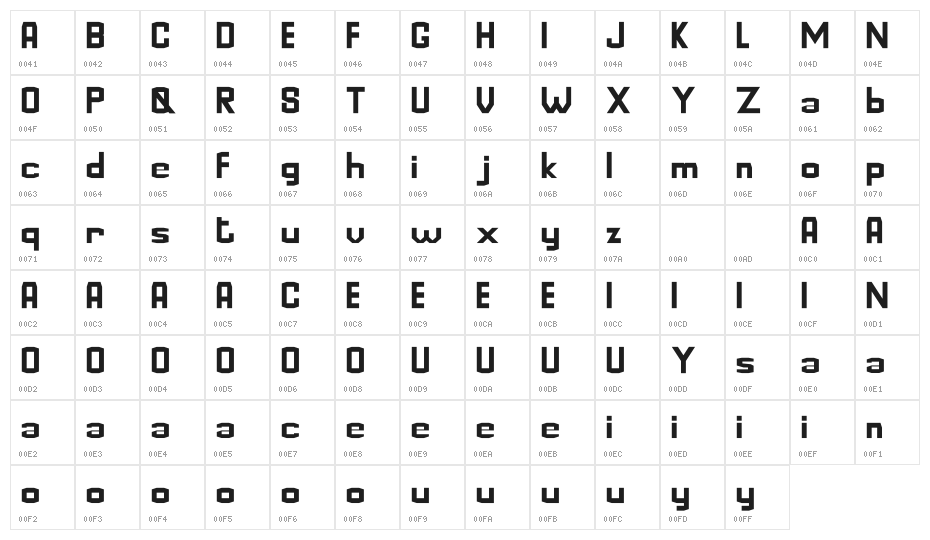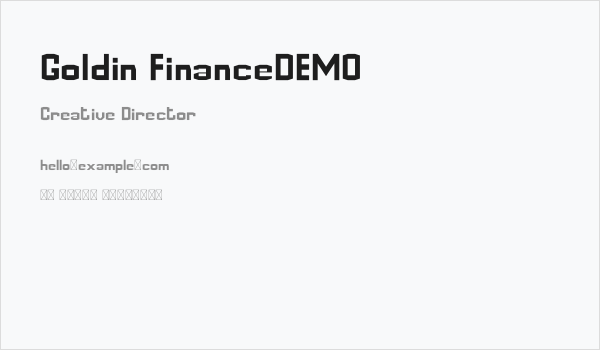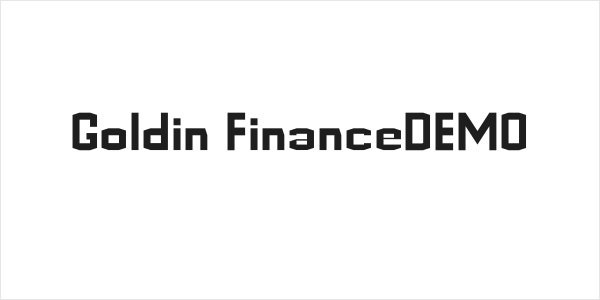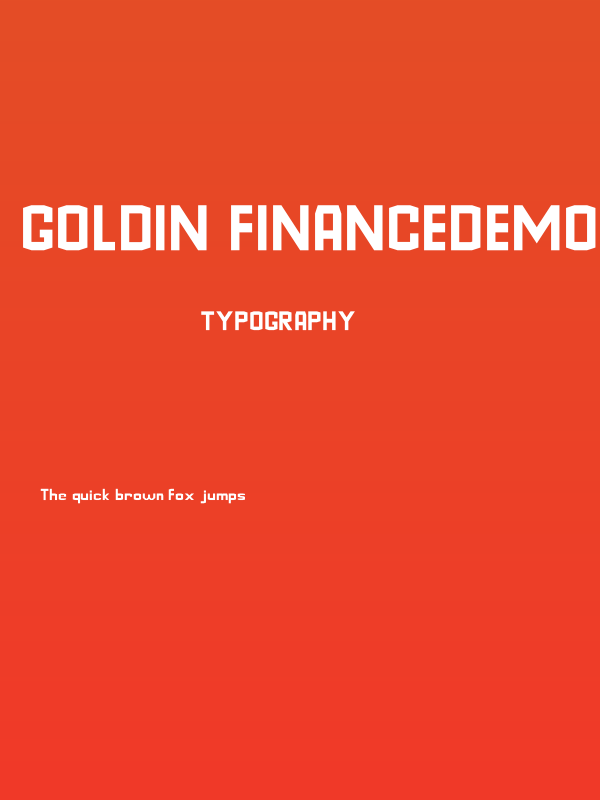
Goldin FinanceDEMO Font
Goldin FinanceDEMO Description
This font features a bold, geometric design with strong, angular lines and a modern aesthetic. The uppercase letters are uniform in height, creating a cohesive and structured appearance. The lowercase letters maintain the geometric style, with some characters exhibiting unique angular cuts that add a distinctive flair. The font lacks traditional curves, opting instead for sharp edges and straight lines, which contribute to its contemporary and edgy look. The absence of numbers and special characters suggests a focus on alphabetic representation, making it ideal for specific design applications where such elements are not required.
| Proposed Projects | Ideal for branding, logo design, and headlines where a modern and edgy look is desired. |